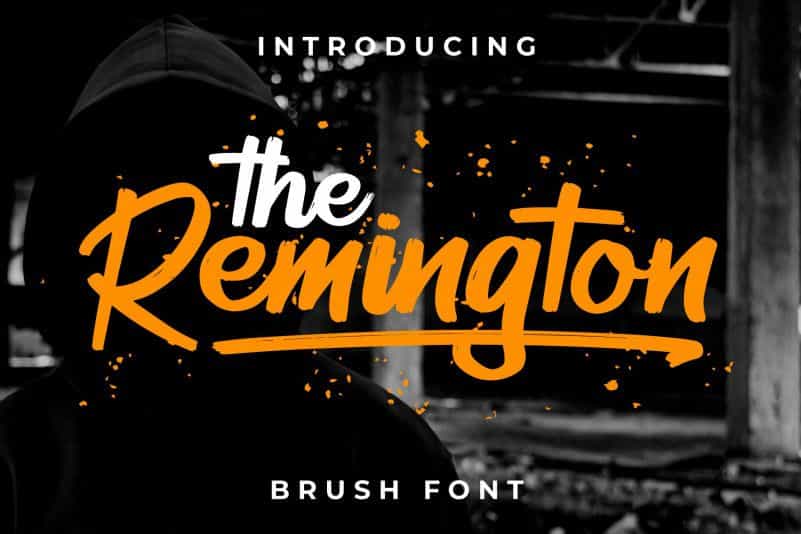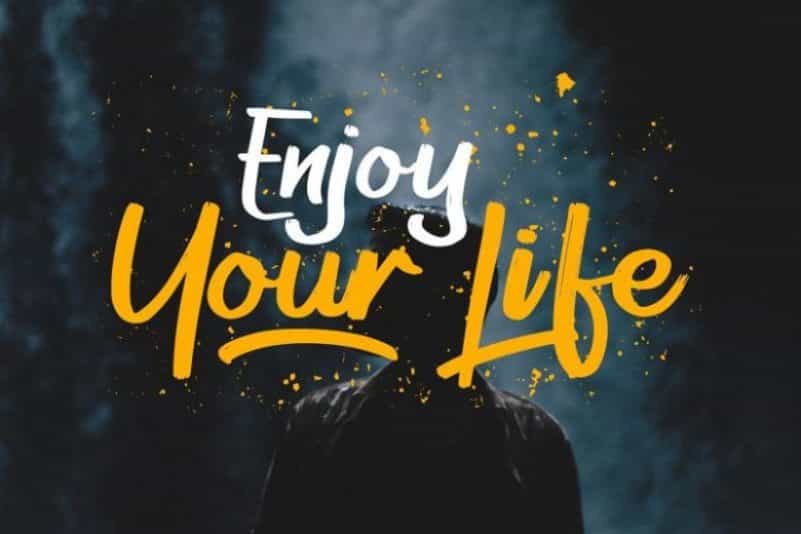
Remington is a Handwritten Brush Font, script with natural dry brush strokes make it beautiful and the stroke of hand quickly. Remington is a versatile font that can be used for signature, branding, wedding, fashion, photography title, poster, social media, ad banner, book cover, packaging, handwritten quotes, greeting cards, and advertising.